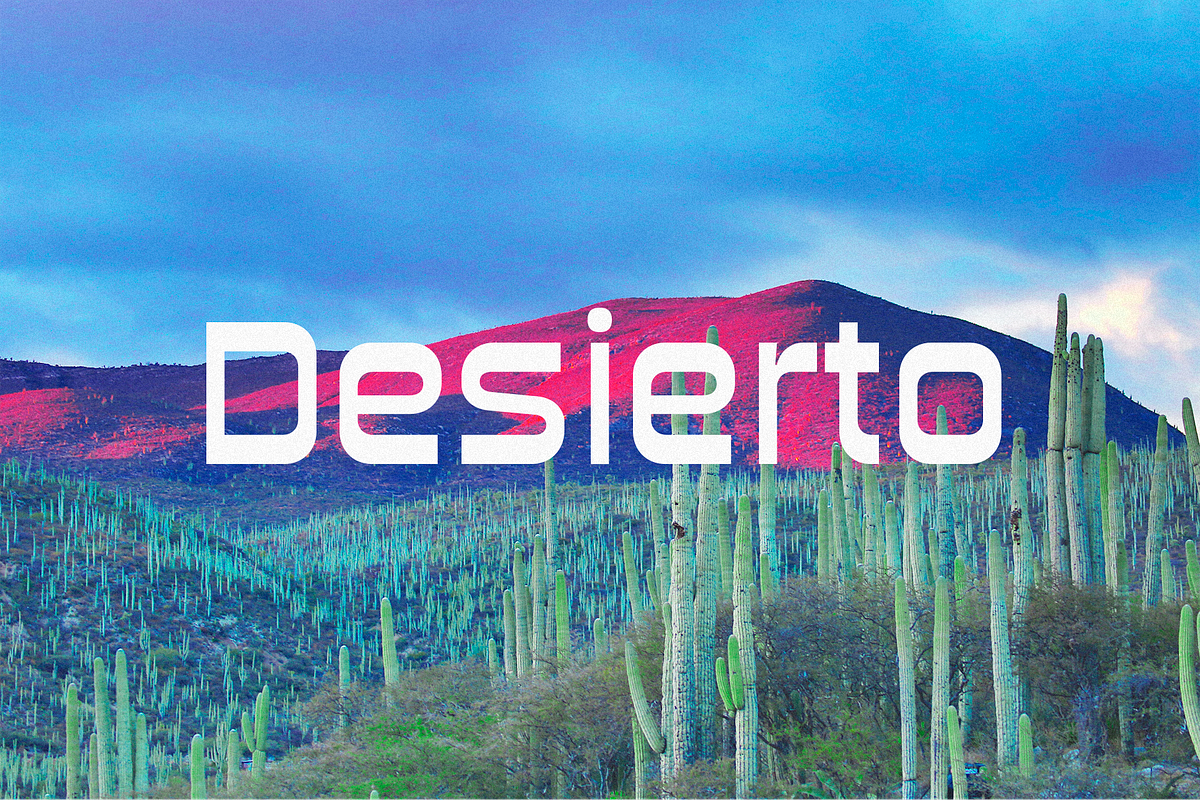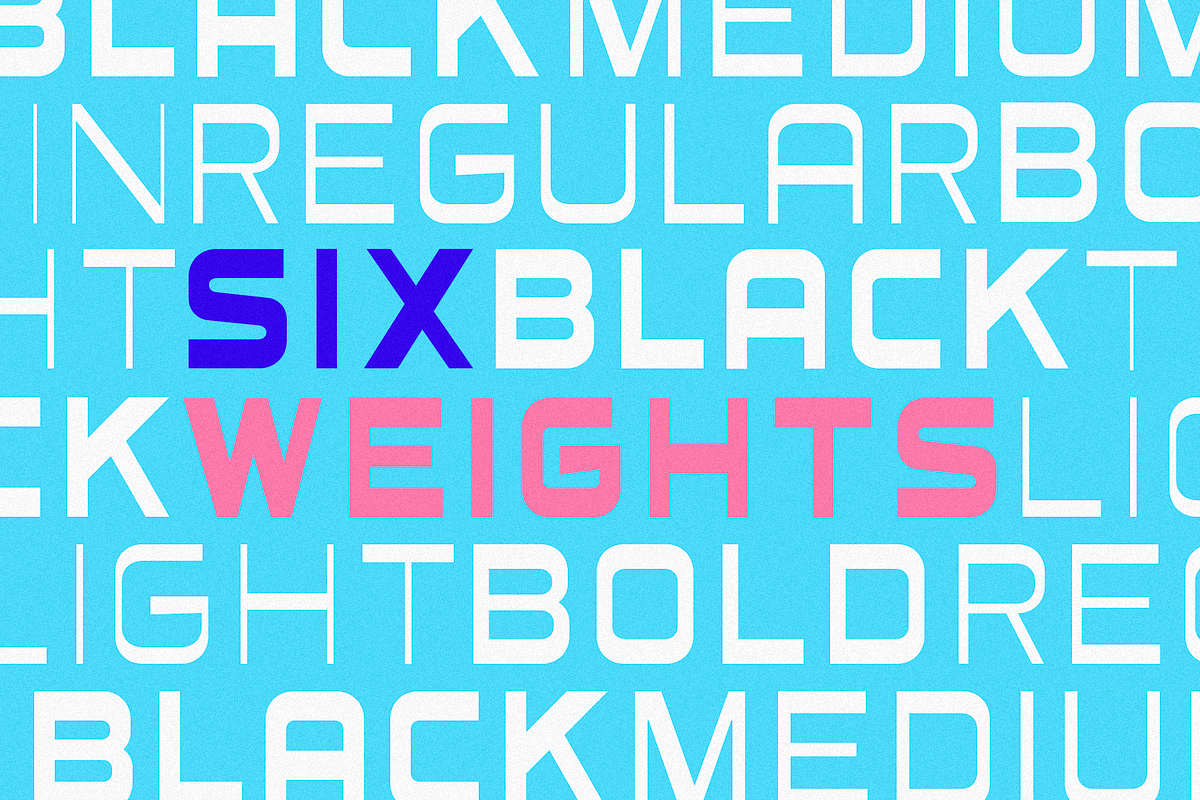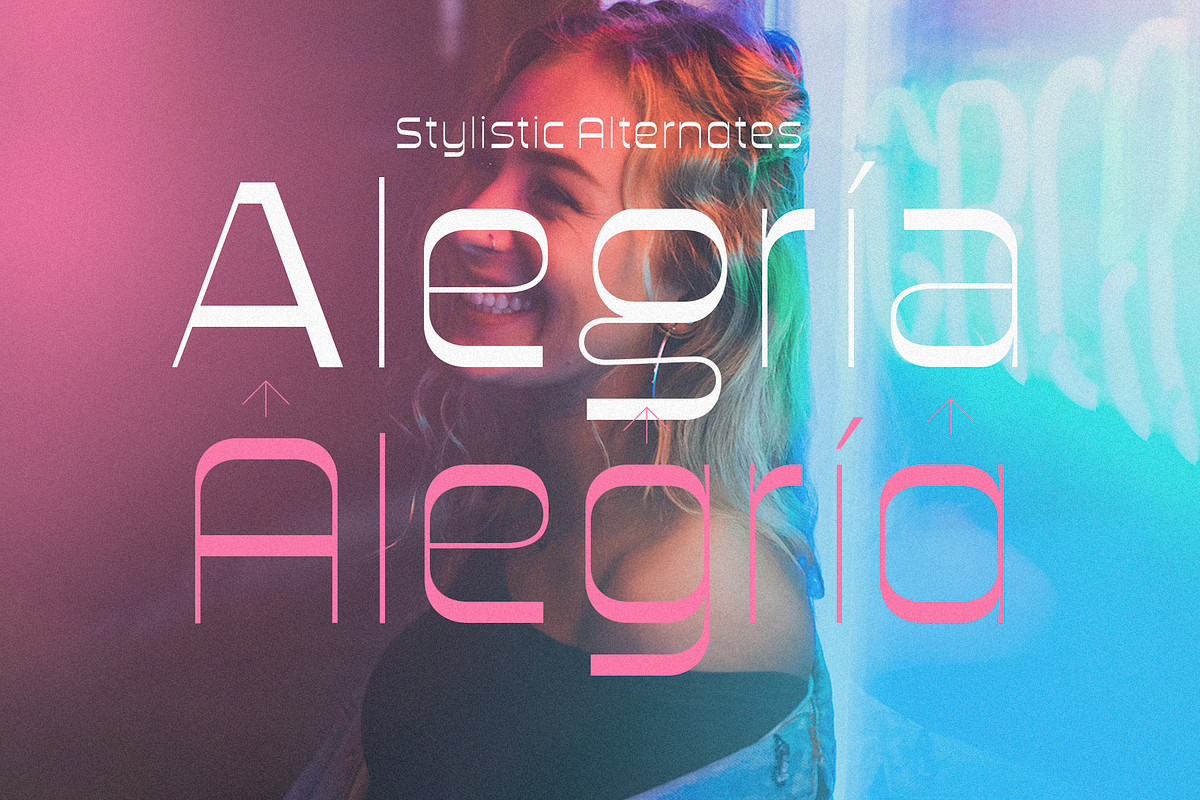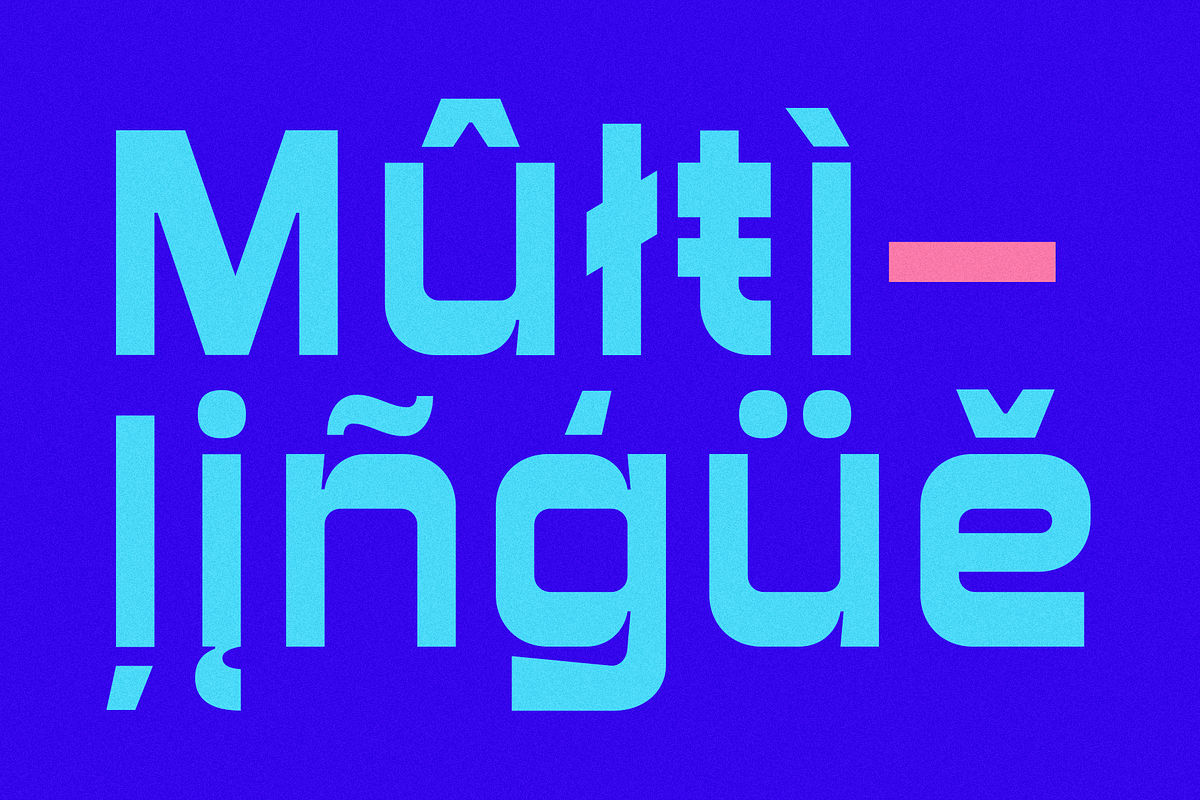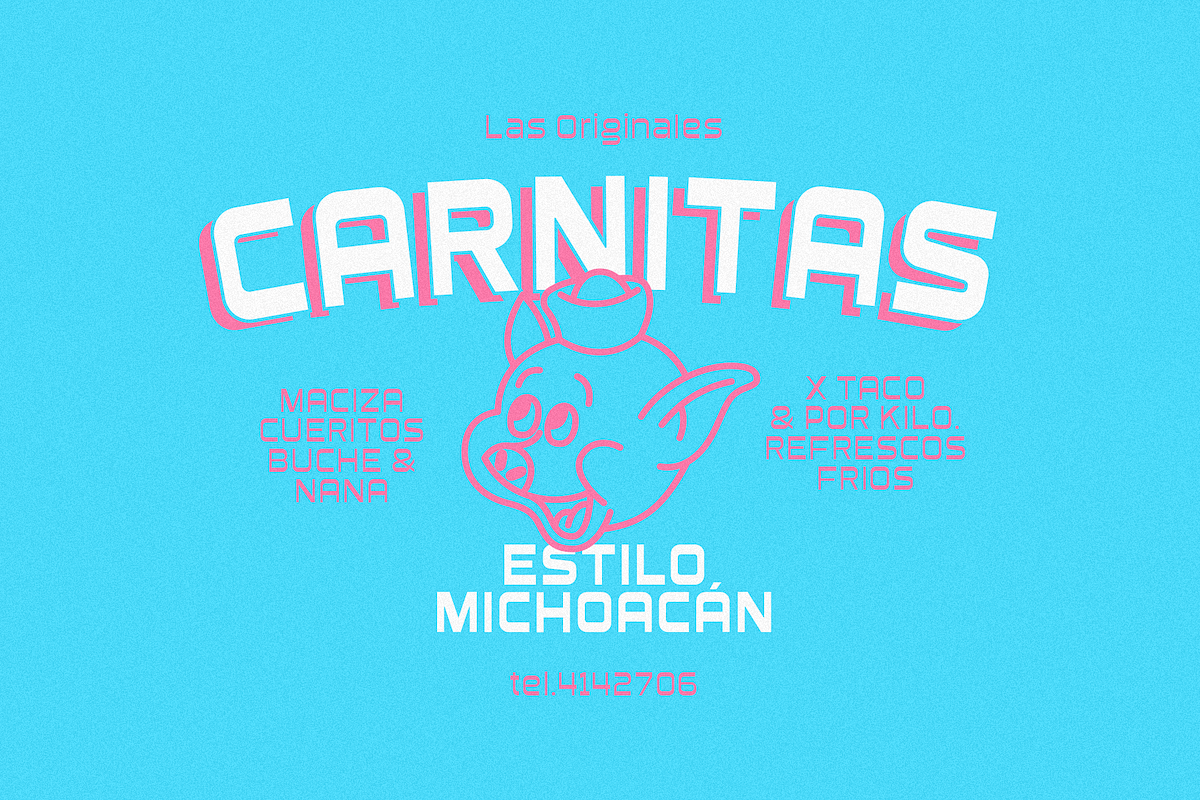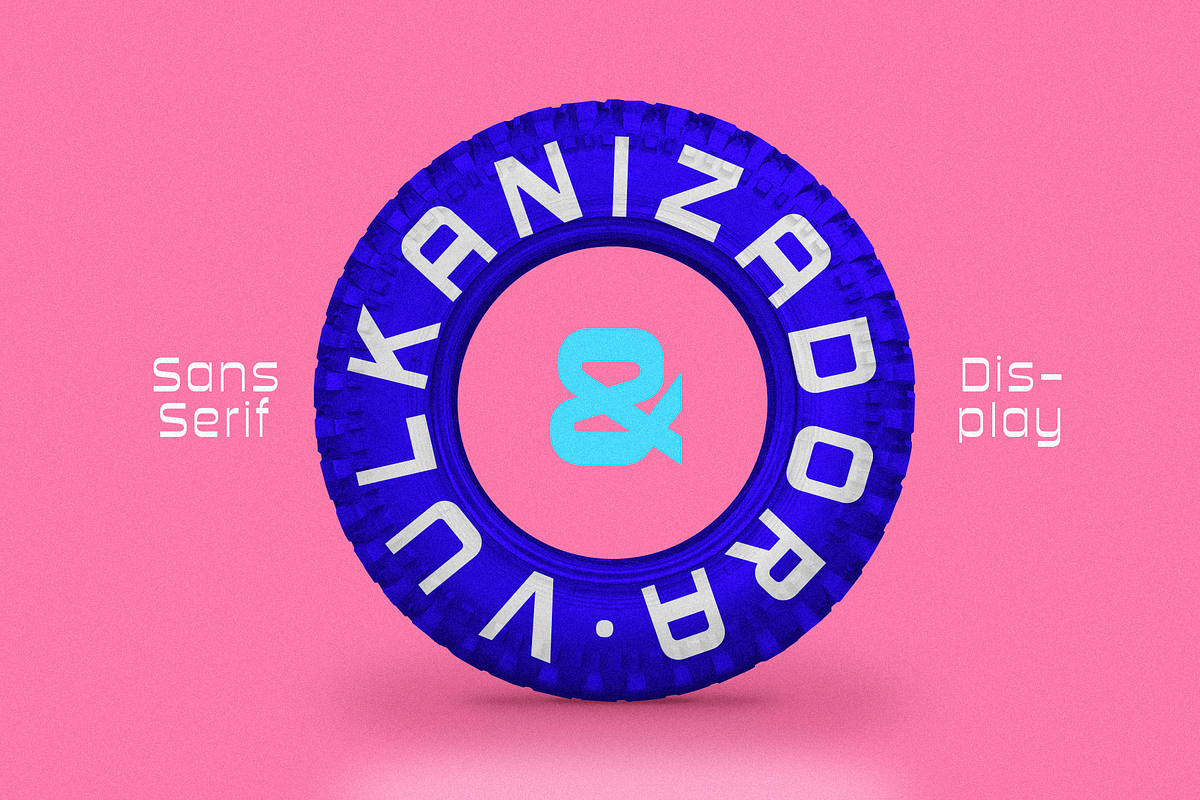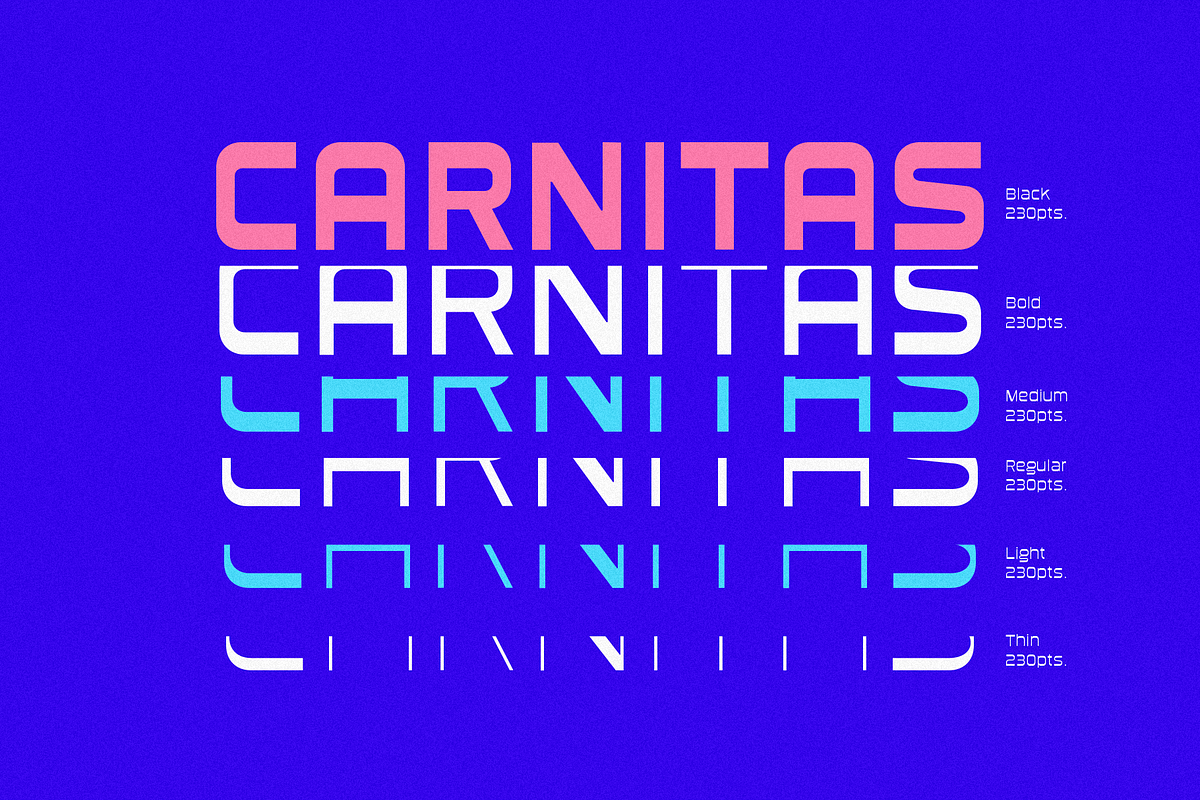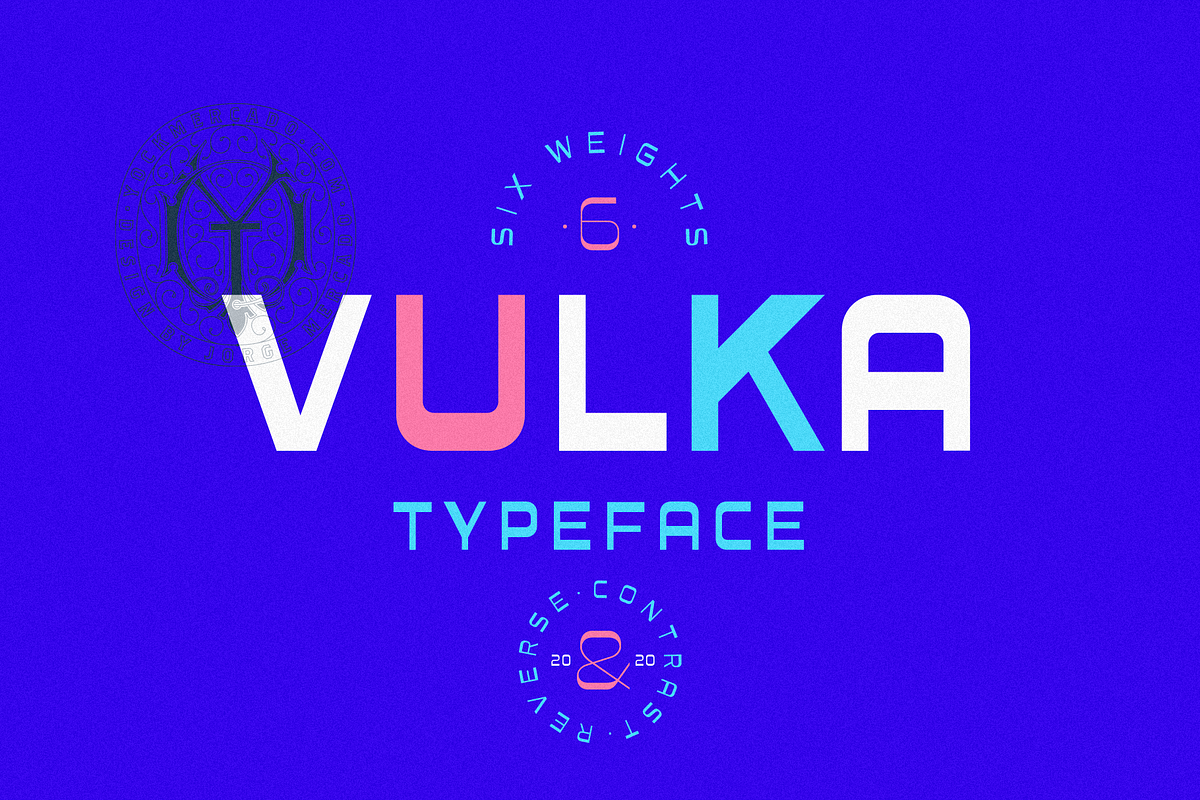
Vulka Reverse Contrast Typeface
VULKA is a typeface inspired by traditional street signs in Mexico's hoods and throughout Latin America, drawn with reverse contrast in 6 different typographic weights that make this type very versatile. The "Heavy weight" is strong and eye-catching, in the other hand the "Thin weight" is delicate, modern and simple.
Fully compatible with most Latin languages.